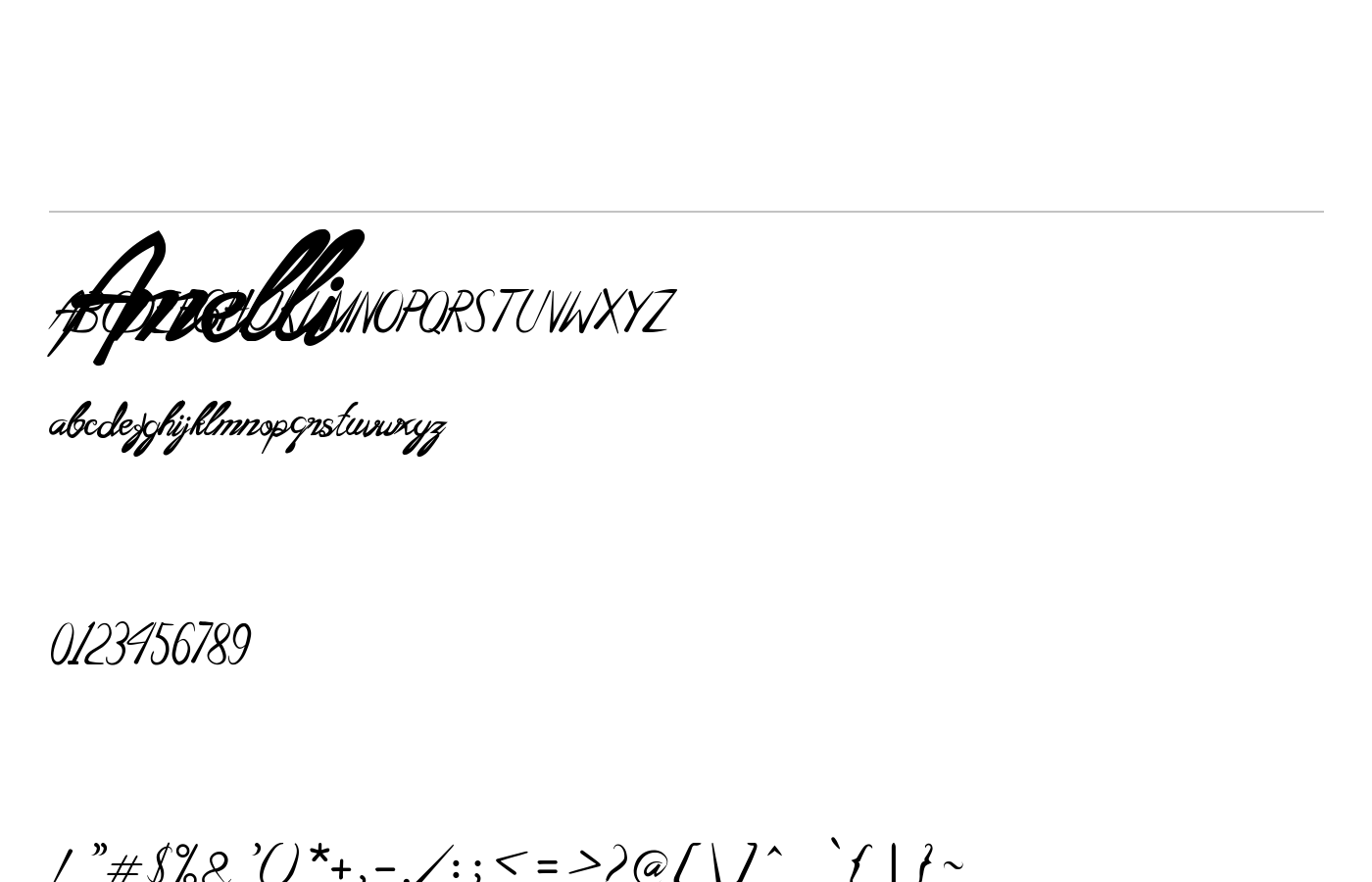
Amelli is a sophisticated script font with elegant, flowing strokes that mimic natural handwriting, featuring a high contrast between thick and thin lines. Its narrow, slightly condensed style and slender letterforms give it a refined and graceful appearance, making it ideal for luxury branding, invitations, and stylish editorial design where a personal, artistic touch is desired. This font works best in headlines or decorative uses, adding a sense of charm and uniqueness to any project.
Amelli Font
About Amelli Font
| Font family | Amelli Font |
| Designer | Aris Dpu 2020 |